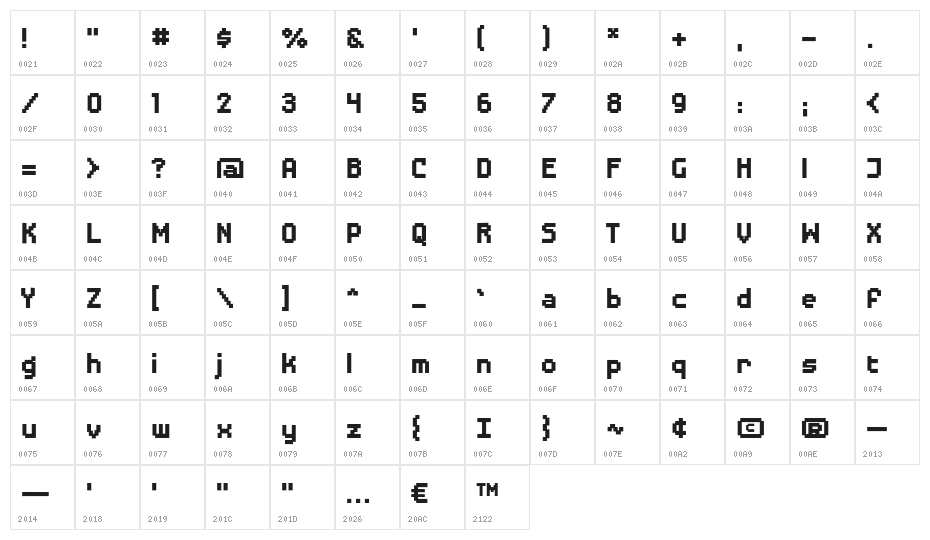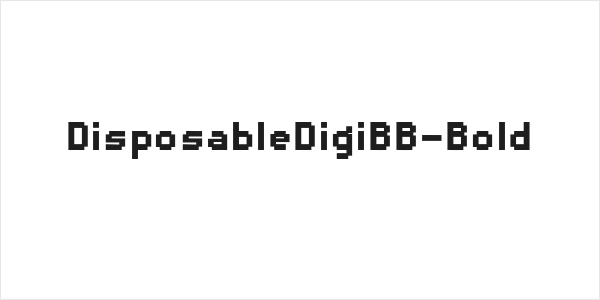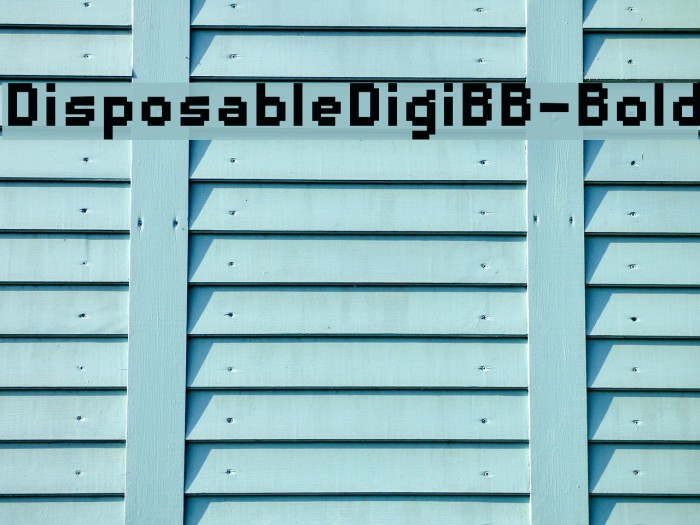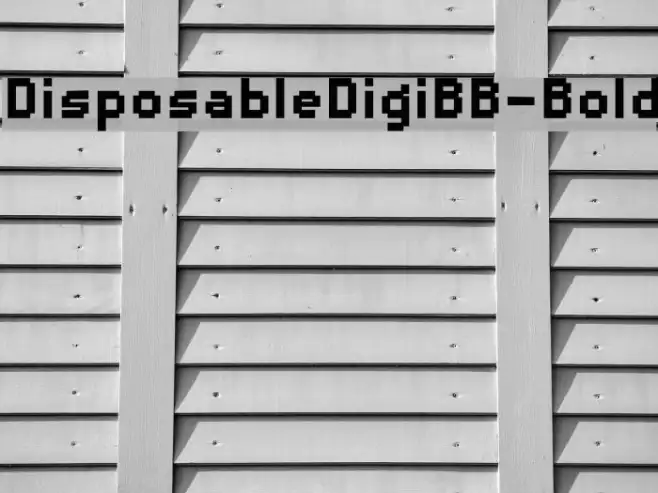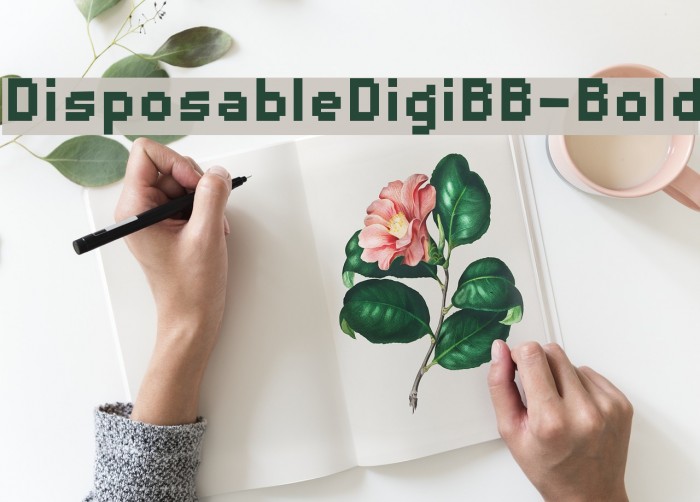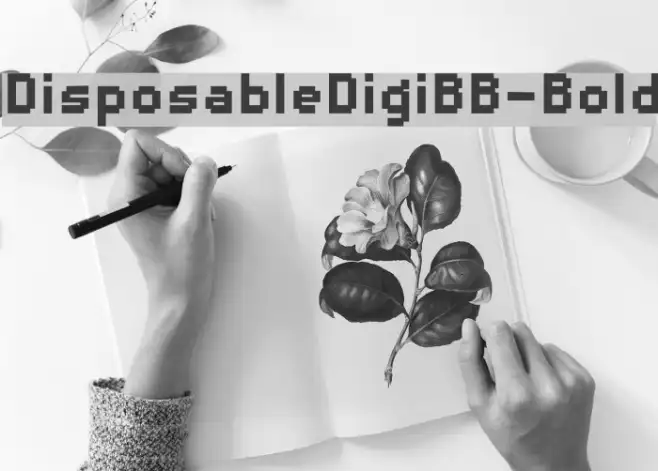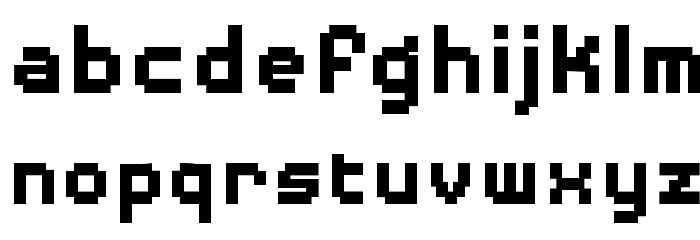
DisposableDigiBB-Bold Font
DisposableDigiBB-Bold Description
This font features a bold, pixelated design reminiscent of classic digital displays and early computer graphics. Each character is constructed with a blocky, grid-like structure, giving it a distinctly retro and technological feel. The uppercase and lowercase letters maintain a consistent height and width, contributing to a uniform appearance. The numerals and special characters are crafted with the same pixelated style, ensuring cohesion across all elements. This font's simplicity and geometric form make it highly legible, even at smaller sizes, while its boldness ensures it stands out in any design.
| Use Case | Headlines, Logos, Digital displays |
| Proposed Projects | Ideal for projects that require a retro or tech-inspired look, such as video game graphics, digital-themed posters, or technology-related branding. |